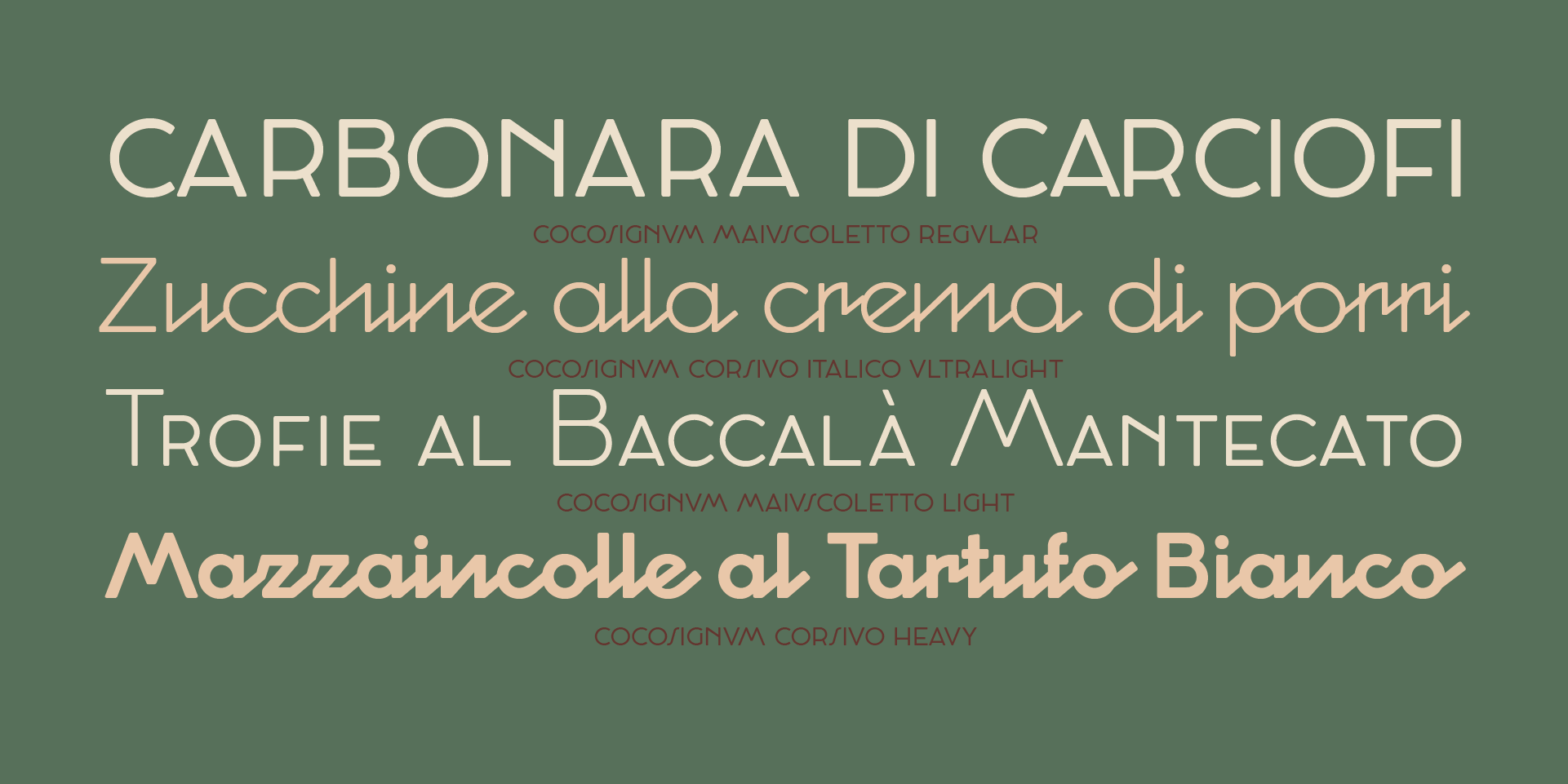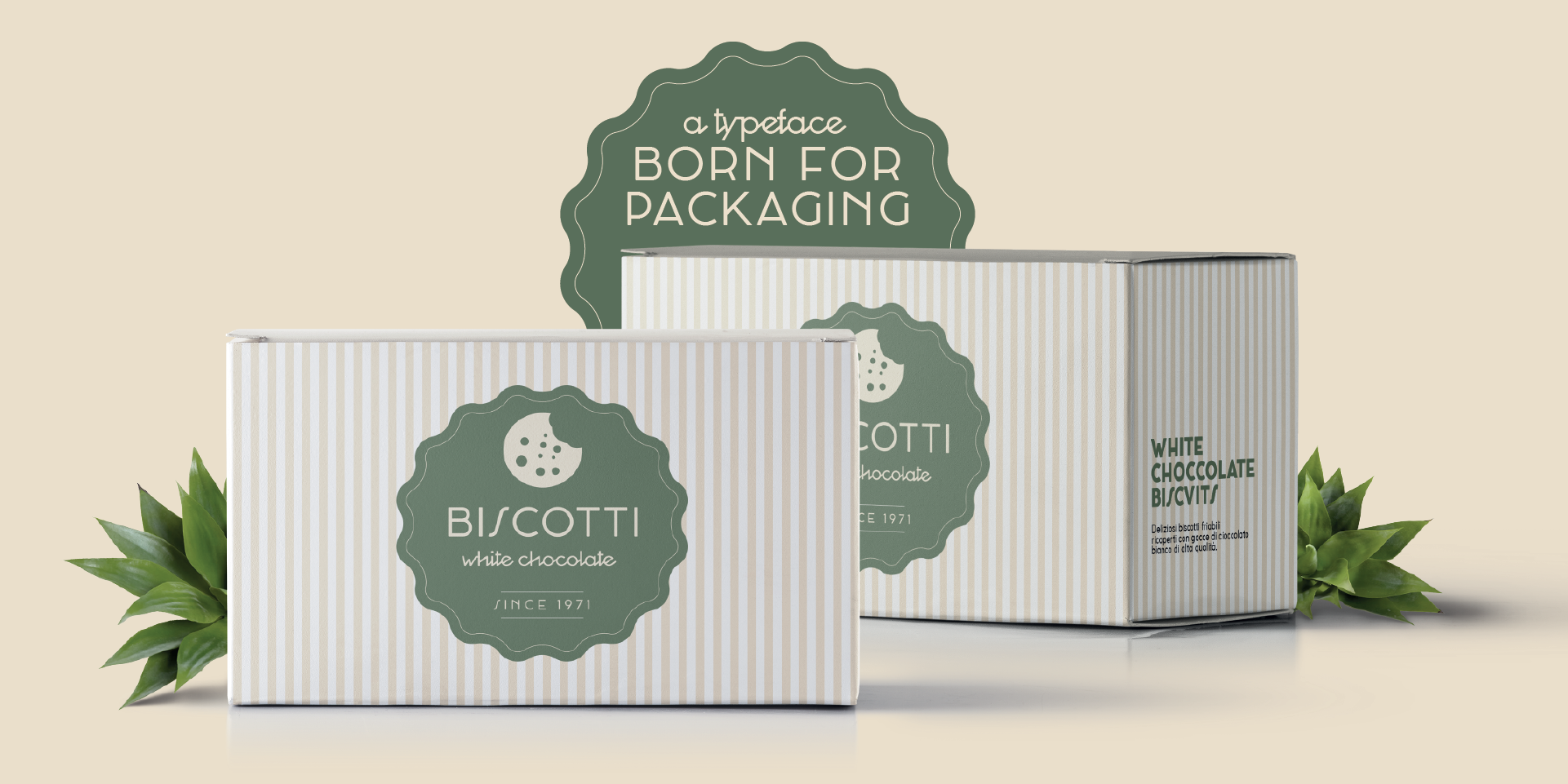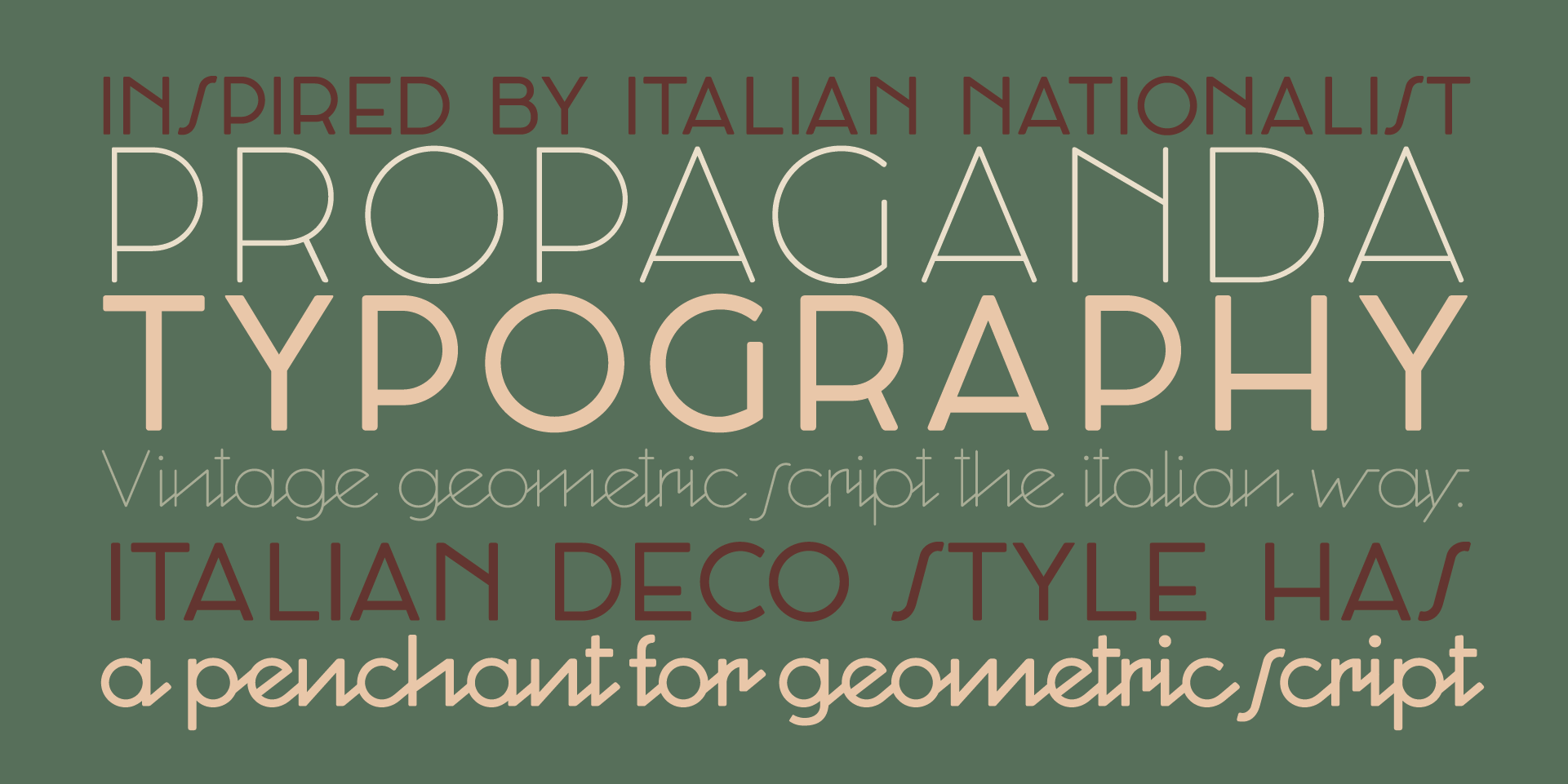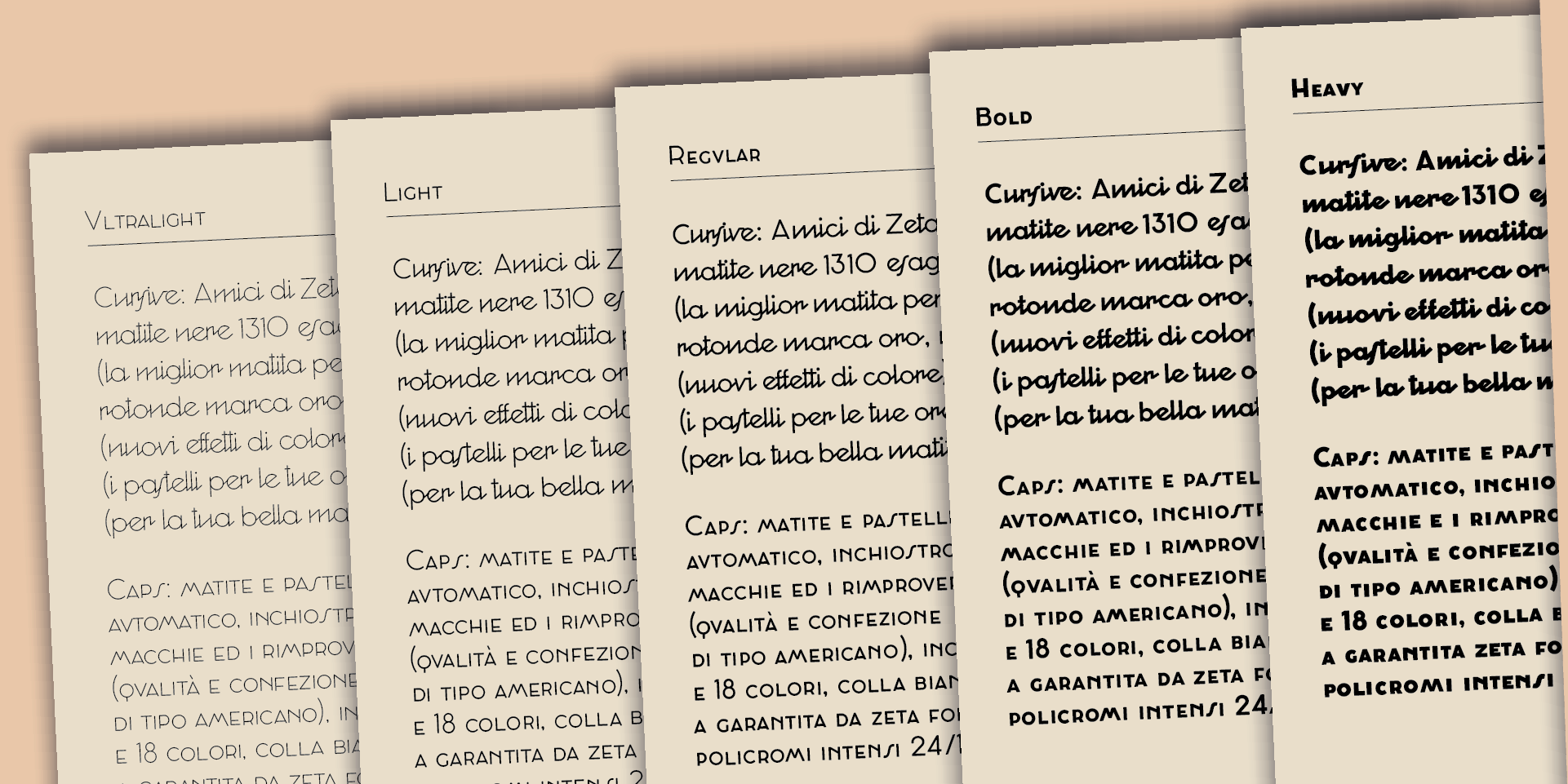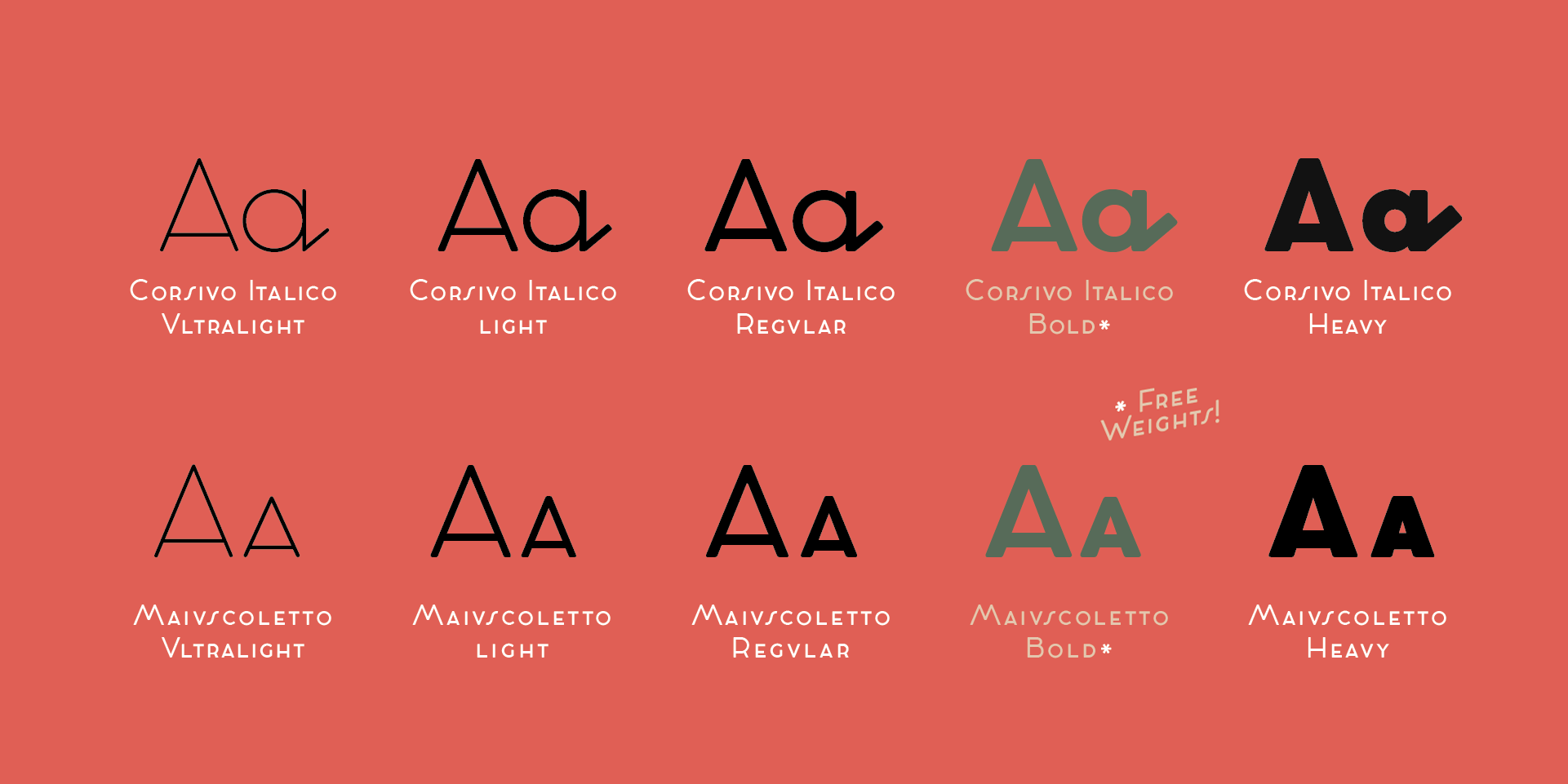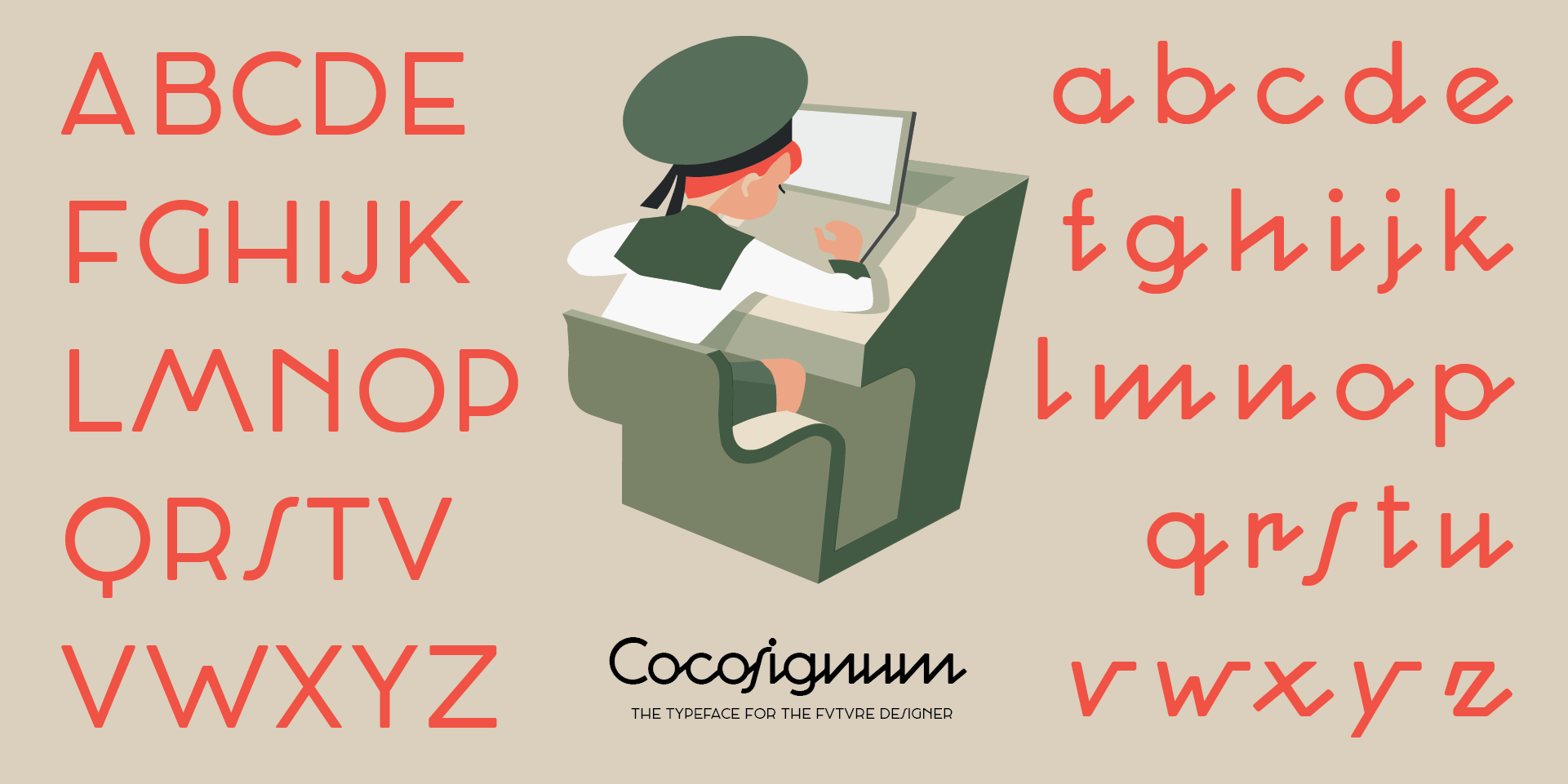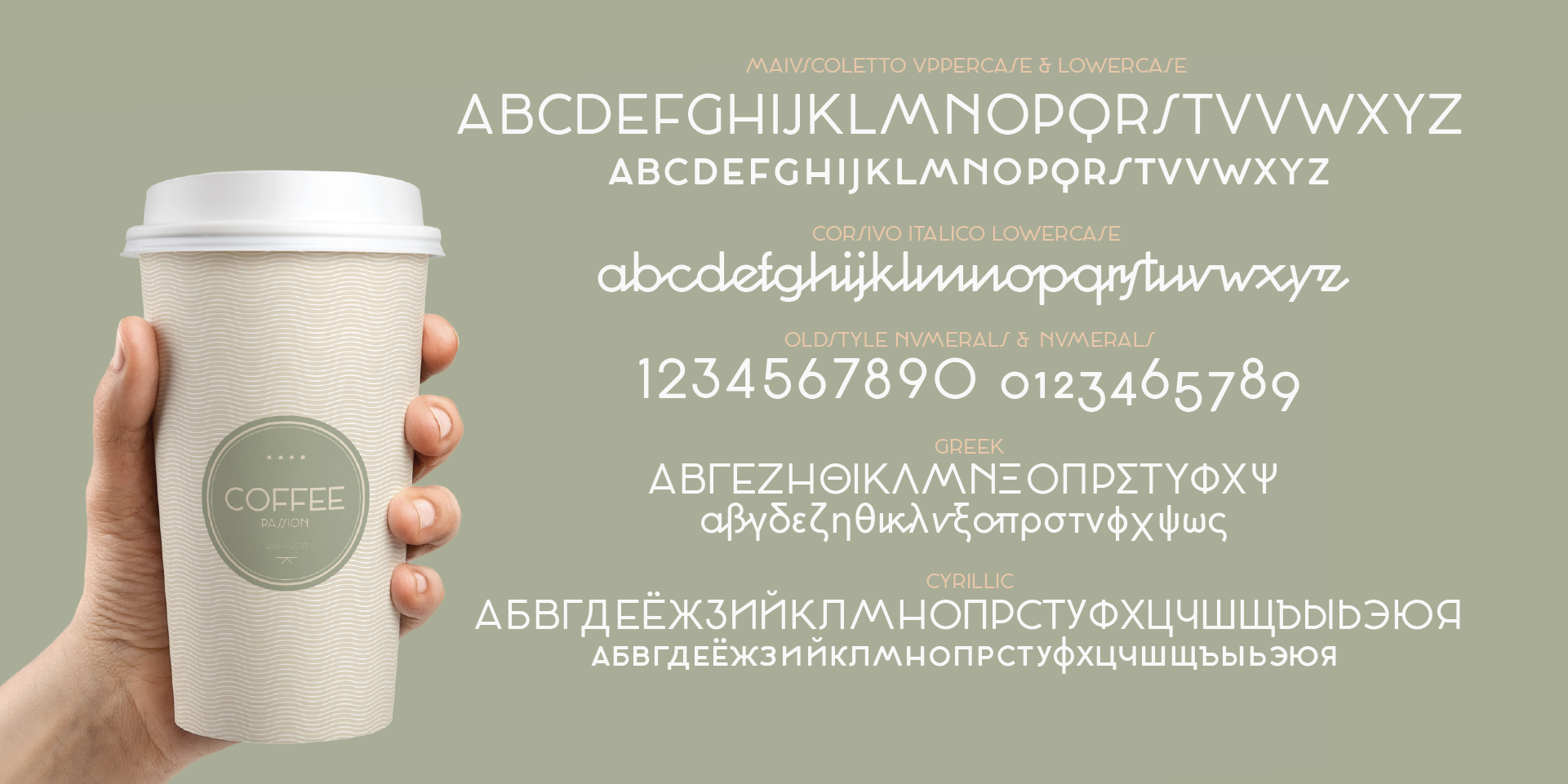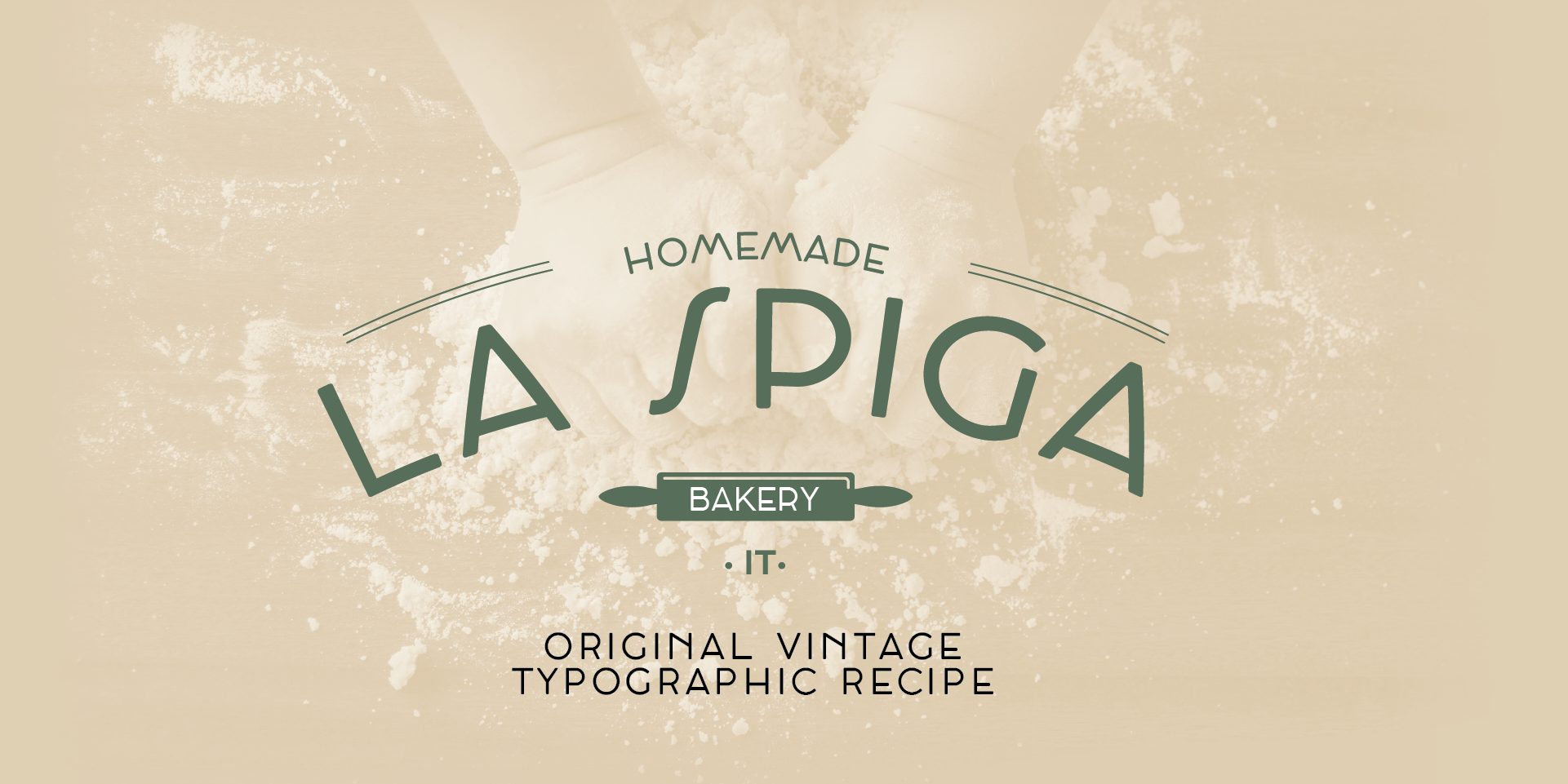
COCOSIGNUM takes inspiration from the typography of the italian thirties.
The imperial uppercase with its propaganda deco overtones is softened by a cursive lowercase geometric script in the Corsivo Italico version.
It comes in two styles and five weights, covering over forty languages using latin alphabet, as well as greek and cyrillic.